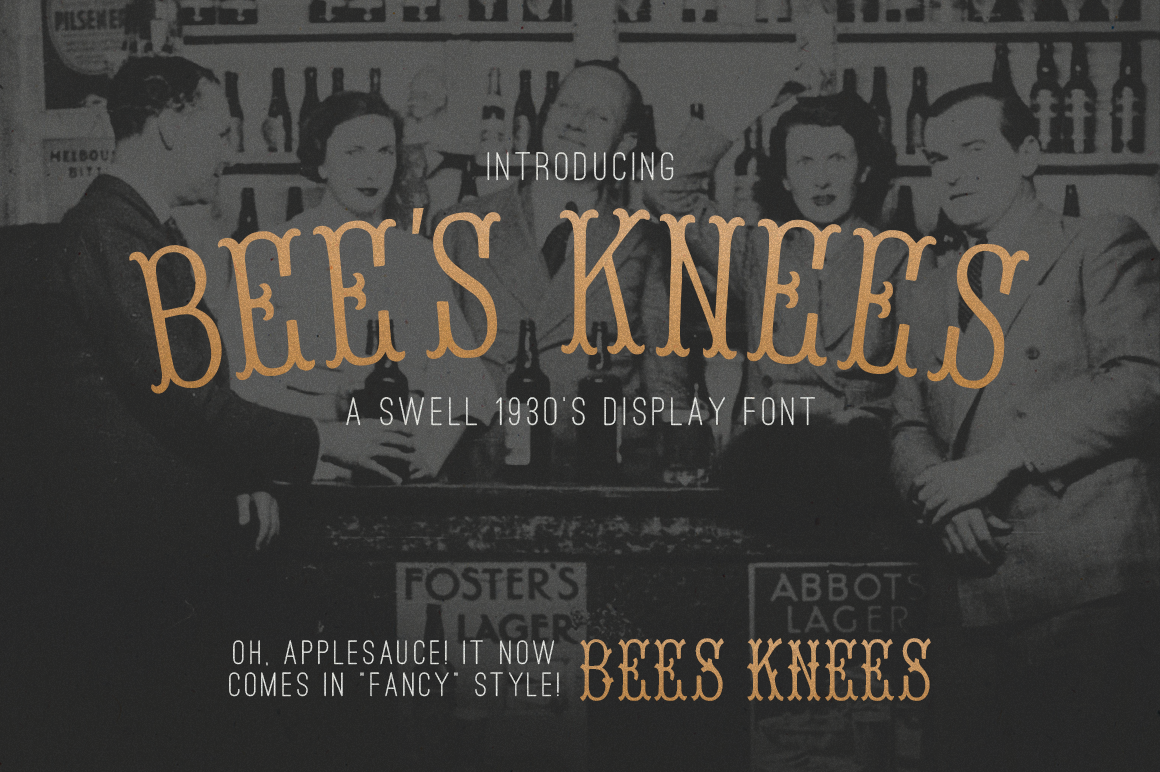
Bee's Knees Font
Pulled from an old embroiderer's sample book from the 1930's, Bee's Knees has all the playful charm of that golden area. This distinct display font comes in two styles: plain & fancy.
These fonts contains the uppercase alphabet characters only. No lowercase, numerals, or punctuation just yet. Maybe in the future. Thanks for checking out Bee's Knees.